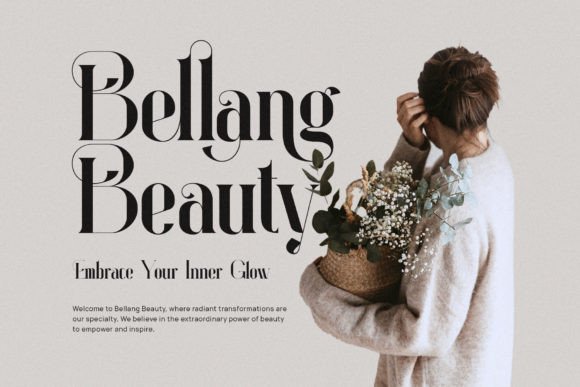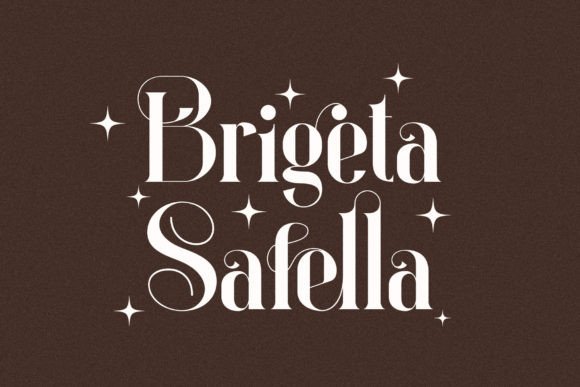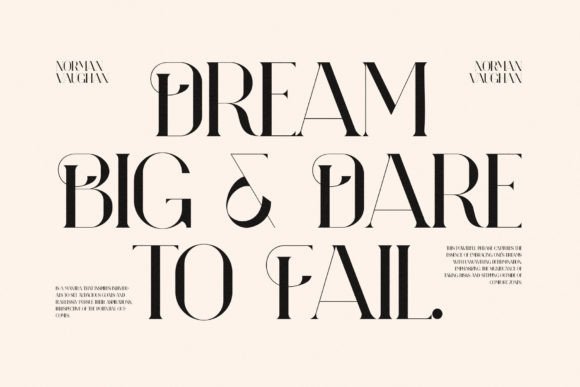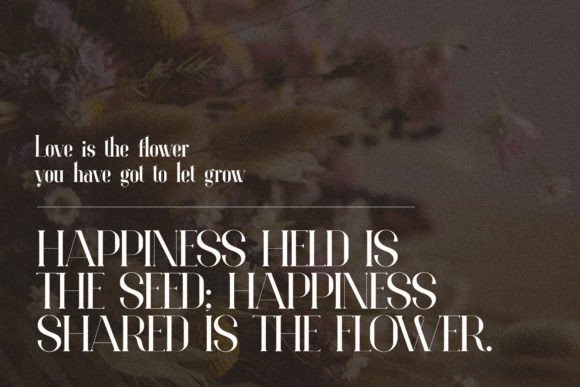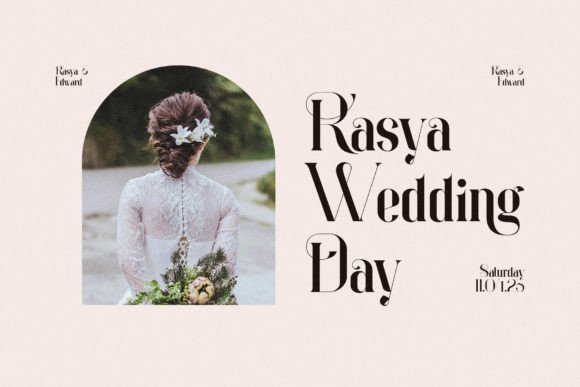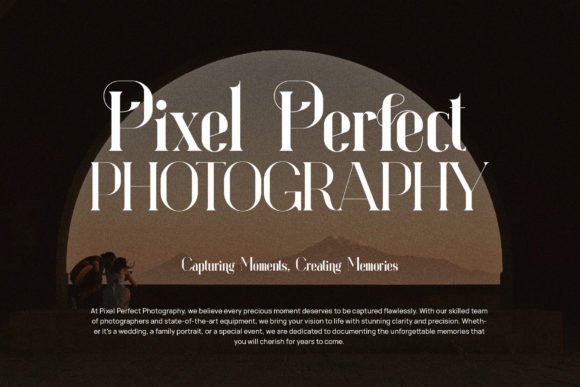
Discover the Elegance of Angilia Font: Elevate Your Designs with Timeless Charm
Are you searching for a typeface that exudes sophistication and refinement? Look no further than Angilia Font, a classy serif typeface that brings a touch of elegance to any design project. With its beautiful ligatures and timeless charm, Angilia is the perfect choice for designers and crafters looking to create a polished and sophisticated look.
The Characteristics of Angilia Font
Angilia Font is a serif typeface that boasts a classic and elegant design. Its serifs are carefully crafted to add a touch of refinement to your text, making it perfect for creating invitations, branding, and other creative endeavors. The font’s elegant lines and curves create a sense of sophistication, making it ideal for designers who want to add a touch of luxury to their work.
One of the standout features of Angilia Font is its beautiful ligatures. Ligatures are special characters that combine two or more letters to create a single glyph, adding a unique flair to your text. Angilia’s ligatures are carefully designed to add a touch of elegance to your text, making it stand out from the crowd.
The Benefits of Using Angilia Font
So why choose Angilia Font for your design projects? Here are just a few benefits of using this elegant serif typeface:
- Sophistication and refinement: Angilia Font adds a touch of elegance to any design project, making it perfect for creating sophisticated and polished looks.
- Timeless charm: Unlike trendy typefaces that quickly go out of style, Angilia Font has a timeless charm that will never go out of fashion.
- Versatility: Angilia Font is perfect for a wide range of design projects, from invitations and branding to packaging and advertising.
- Easy to read: Despite its elegant design, Angilia Font is easy to read, making it perfect for body text and other large blocks of text.
How to Use Angilia Font in Your Design Projects
Using Angilia Font in your design projects is easy. Here are a few tips to get you started:
- Pair it with a sans-serif font: Angilia Font pairs perfectly with sans-serif fonts, creating a beautiful contrast between elegant and modern.
- Use it for headings and titles: Angilia Font is perfect for headings and titles, adding a touch of elegance to your text.
- Experiment with ligatures: Angilia’s ligatures are a key feature of the font. Experiment with different ligatures to add a unique flair to your text.
Who Can Benefit from Angilia Font?
Angilia Font is perfect for a wide range of designers and crafters, including:
- Graphic designers: Angilia Font is perfect for graphic designers looking to add a touch of elegance to their designs.
- Wedding planners and stationery designers: Angilia Font is perfect for creating beautiful wedding invitations, stationery, and other paper goods.
- Branding and packaging designers: Angilia Font is perfect for creating sophisticated and polished branding and packaging designs.
In conclusion, Angilia Font is a classy serif typeface that brings a touch of elegance and refinement to any design project. With its beautiful ligatures and timeless charm, Angilia is the perfect choice for designers and crafters looking to create a sophisticated and polished look. Whether you’re working on invitations, branding, or any creative endeavor, Angilia Font is sure to add a touch of refinement to your work.